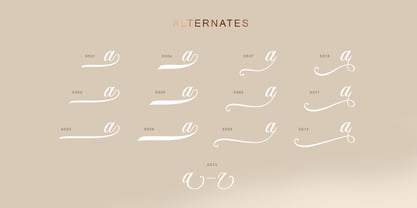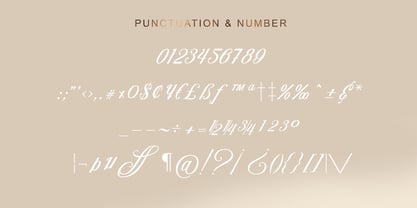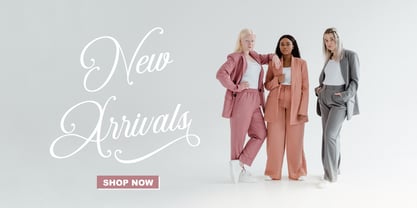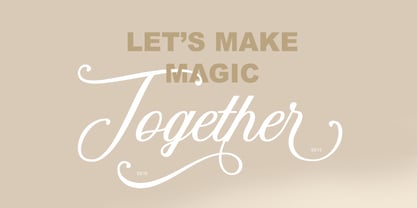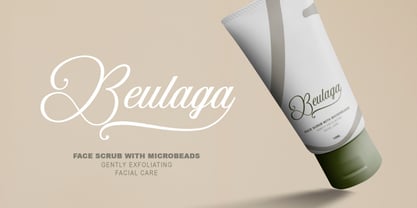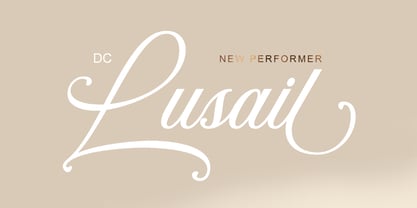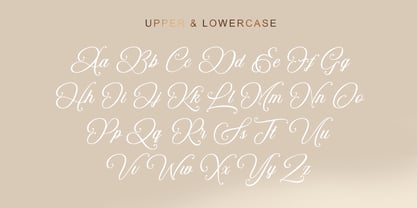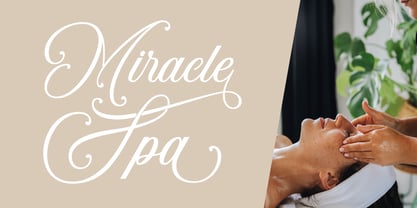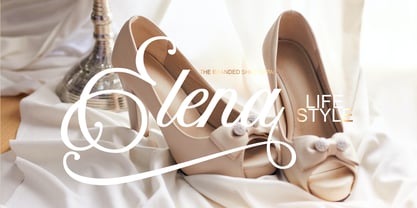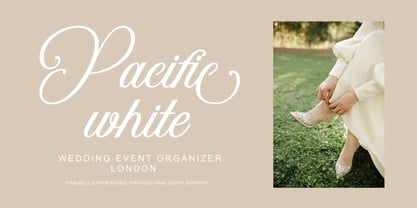
DC Lusail
by Decatype
The DC Lusail Font Family was designed by Raban Panton and published by Decatype. DC Lusail contains 1 styles. More about this family
DC Lusail is a modern script typeface designed to bring elegance and sophistication to every project. With smooth strokes, refined curves, and stylish swashes, it feels timeless yet versatile. Ideal for premium branding, wedding invitations, luxury packaging, social media, and editorial design. Its unique alternates, swash variations, and complete character set allow endless customization. Pair it with a clean sans serif for a balanced, contemporary look.
Designers: Raban Panton
Foundry: Decatype